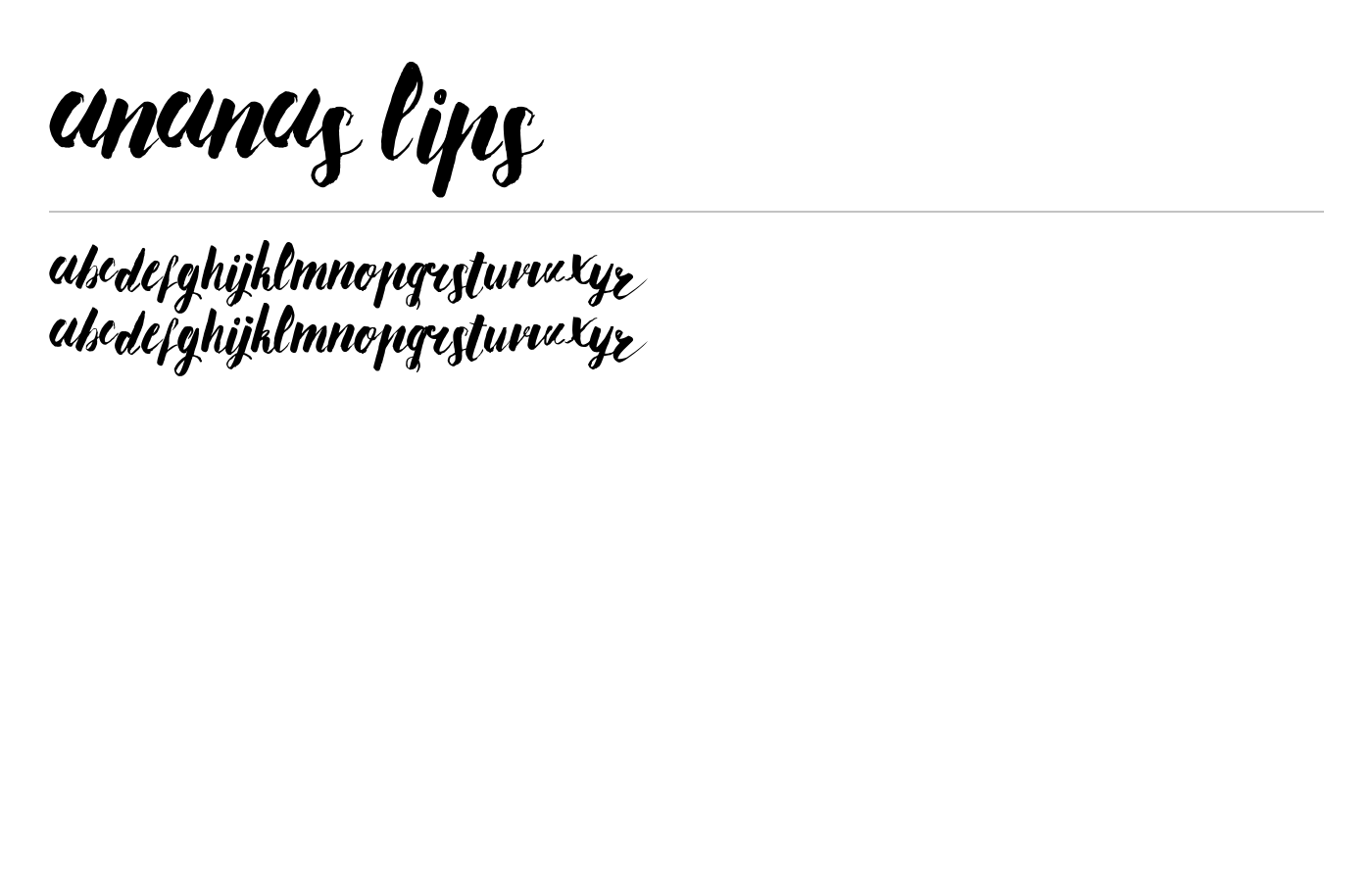
Ananas Lips is a bold, brush-script font with a lively and artistic feel, featuring thick, expressive strokes and smooth, flowing curves. Its handwritten style brings a personal and creative touch, making it perfect for designs that want to convey warmth and individuality, such as logos, invitations, and stylish branding. This font works well where a casual yet impactful handwritten look is desired, adding charm and personality to any project.
Ananas Lips Font
About Ananas Lips Font
| Font family | Ananas Lips Font |
| Designer | Leonard |